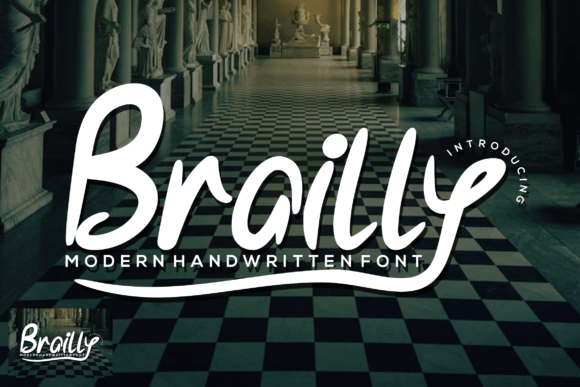
Unleashing Your Creativity with Brailly Font
Have you ever stumbled upon a font that instantly sparks your creativity? Maybe you were working on a design project and suddenly, a handwritten font caught your eye. For me, that moment happened when I discovered the Brailly Font. Its stylish yet casual vibe is the perfect combination for any creative project.
The Brailly Font is designed to bring a personal touch to your designs, whether you’re crafting, creating digital content, or making presentations. Its versatility makes it an ideal choice for greeting cards, invitations, or even social media posts. As a designer, you’ll appreciate the Brailly Font for its unique flair and the freedom it gives you to express your creativity.
Brailly Font Key Features
- Unique Characteristics: Brailly Font features a unique blend of modern and traditional typography, with distinctive letterforms and elegant flair, making it ideal for high-end designs and publications.
Brailly Font Review
I recently had the chance to work with the Brailly Font, and I must say it’s a mixed bag. Here’s my honest review.
- The Brailly Font has a unique, elegant aesthetic that’s perfect for high-end branding and publishing projects.
- The font is highly legible, making it suitable for body text and long passages of text.
- The font family includes a wide range of weights and styles, allowing for great flexibility in design.
- The Brailly Font is not particularly suitable for digital use, as it can be difficult to read on screens.
- The font lacks a clear, distinctive identity, making it harder to stand out in crowded design markets.
- The font’s elegance can sometimes feel over-the-top or overly ornate, which may not be to every designer’s taste.
Overall, I’d say the Brailly Font is a solid choice for specific design projects, but it’s not a go-to font for me. It’s a bit too niche and limited in its applications. However, if you’re looking for a high-end, elegant font for a specific project, it’s definitely worth considering.
Brailly Font Practical Application Guide
Tips for Getting the Most Out of Brailly Font
For the best results, use the Brailly font in a formal or elegant setting, such as a wedding invitation or a business presentation. To add visual interest, use the Brailly font in combination with other elegant fonts, such as serif or script fonts. Experiment with different font sizes and styles to create a unique and eye-catching design.
The Brailly font is commonly used in wedding invitations, business presentations, and formal event invitations. It is also used in marketing materials, such as brochures and flyers, to add a touch of elegance and sophistication.
Alternatives to Brailly Font
Playfair Display is a luxurious and elegant serif font that works well for headings and titles. It features a high level of sophistication and refinement, making it perfect for luxury brands, high-end fashion, and art-related projects. When to use: Headings, titles, and luxury branding.
Comparison to Brailly Font: While Brailly Font has a more rustic and vintage feel, Playfair Display is more refined and sophisticated. Brailly Font is better suited for distressed or vintage-themed designs, whereas Playfair Display is ideal for high-end and luxurious designs.